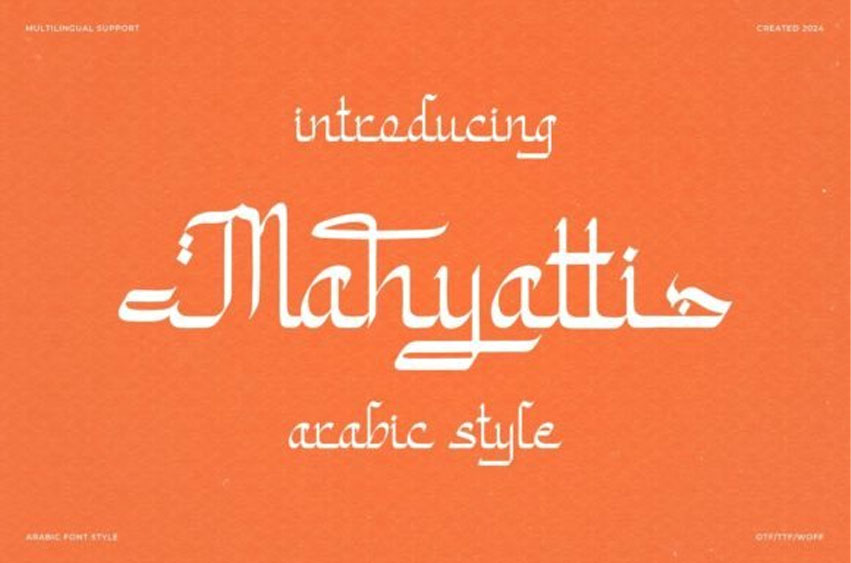
Mahyatti Font
Mahyatti Font is an Arabic-style font that features elegant, flowing curves and decorative elements. It’s perfect for adding a traditional and artistic touch to your designs, such as invitations, posters, or any creative project that needs an Arabic-inspired look.
The font is both beautiful and easy to read, making it versatile for various uses.